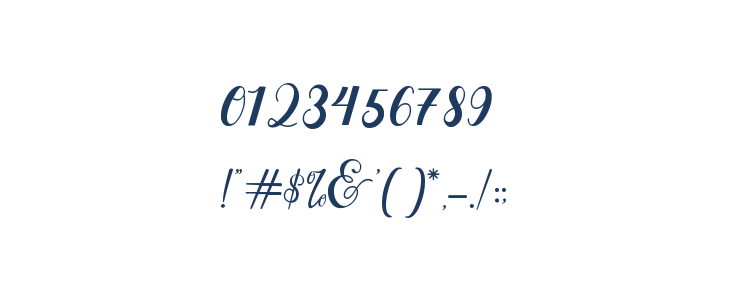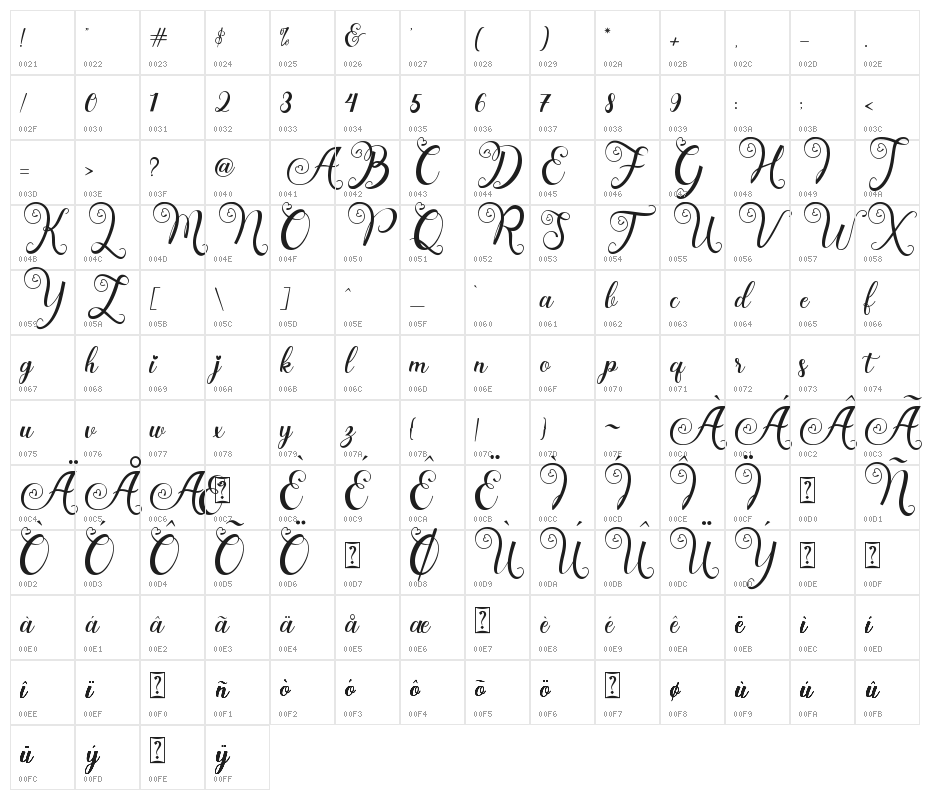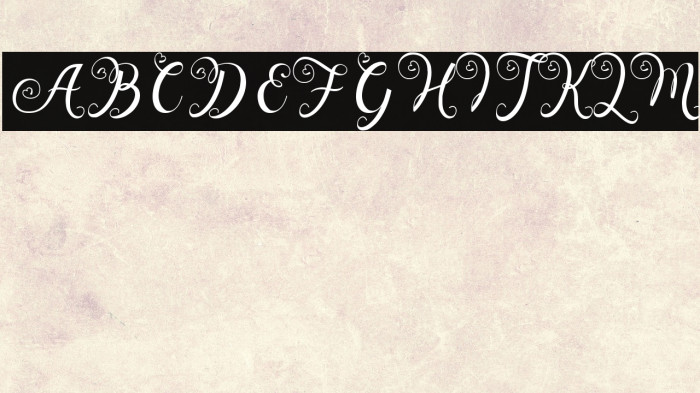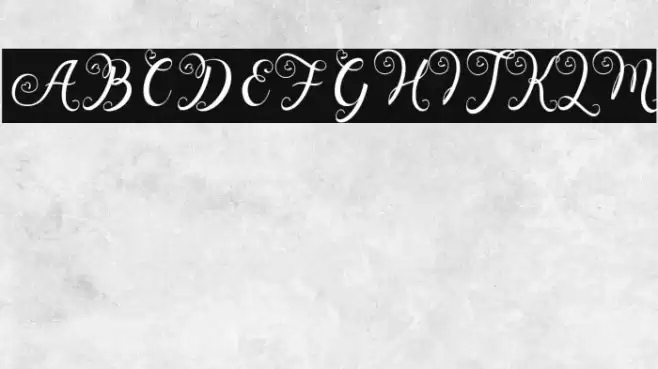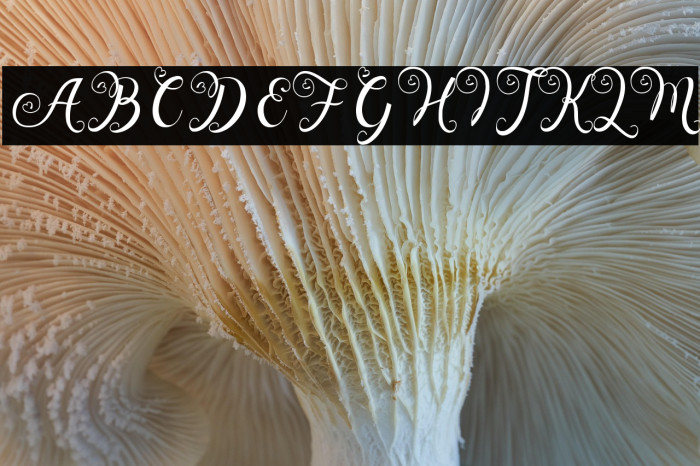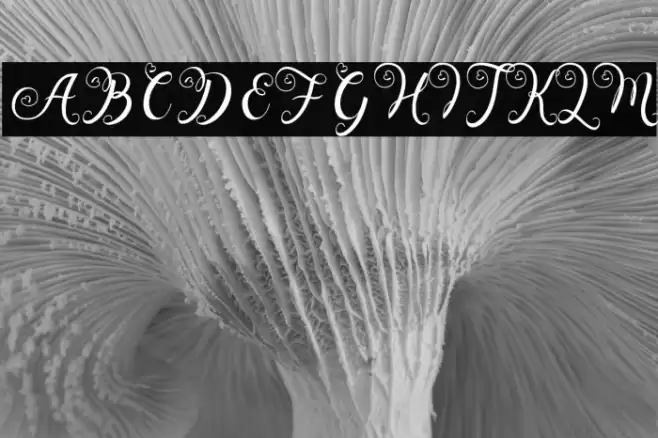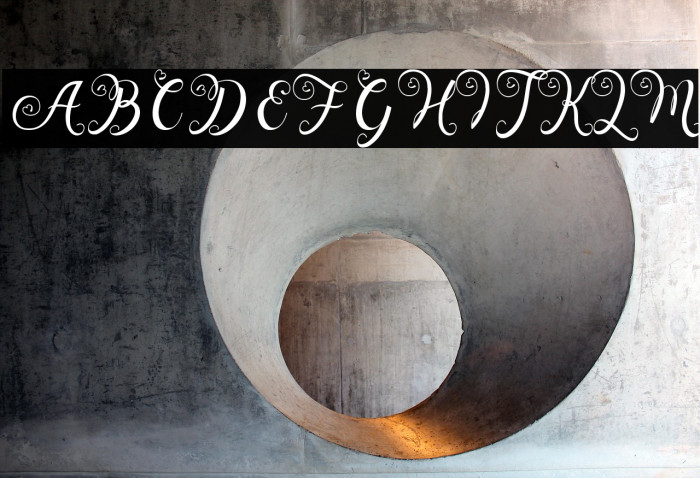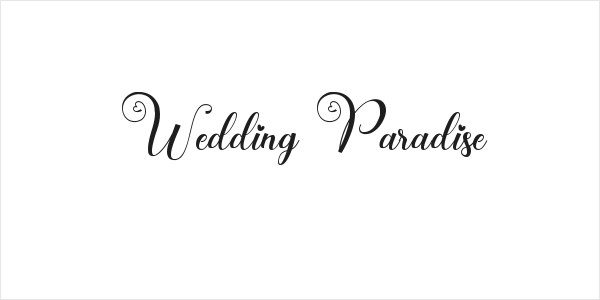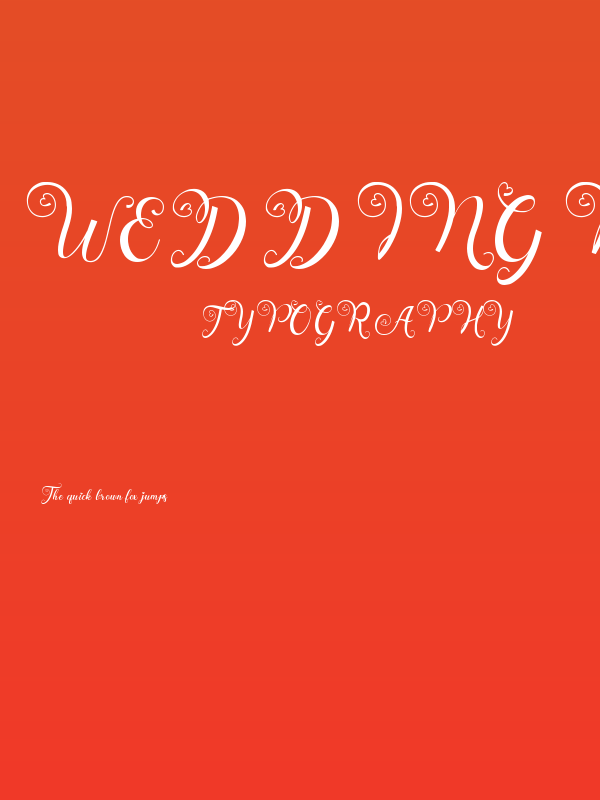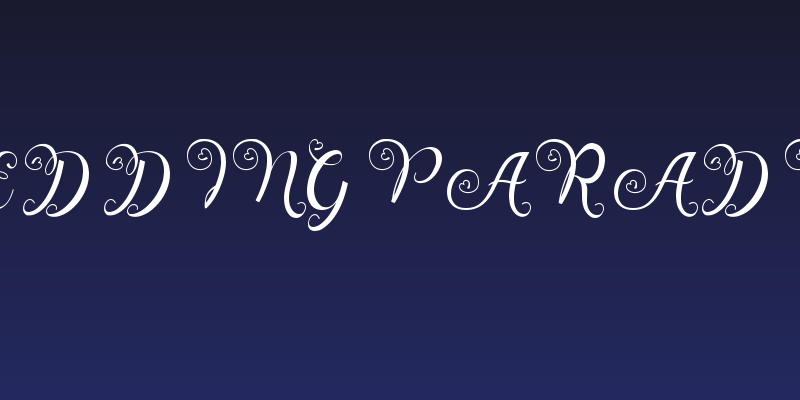
Wedding Paradise Font
This elegant font features a decorative and sophisticated style, perfect for formal occasions. The uppercase letters are adorned with intricate swirls and flourishes, adding a touch of romance and charm. The lowercase letters maintain a smooth, flowing script that complements the ornate capitals. Numbers and special characters are designed with the same attention to detail, ensuring a cohesive look across all text elements. The font's overall appearance is both graceful and stylish, making it ideal for projects that require a touch of elegance.
| Use Case | Headlines, Invitations, Logos |
| Proposed Projects | Ideal for wedding invitations, greeting cards, elegant branding, and decorative signage. |